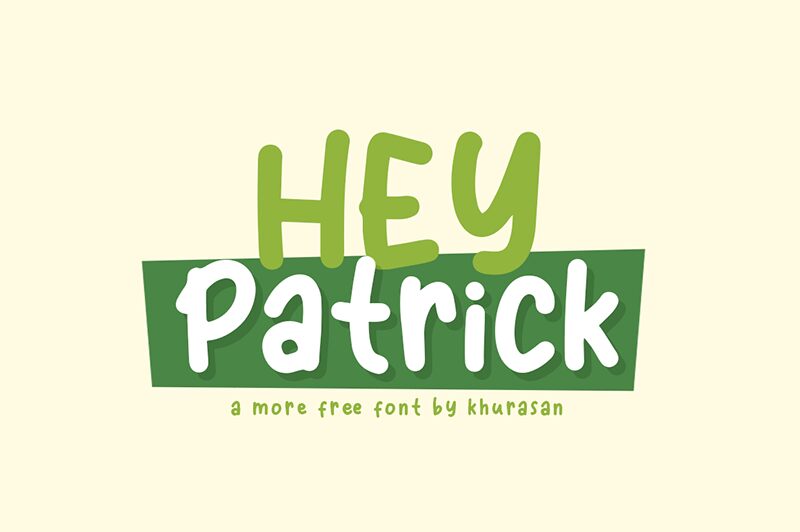
Hey Patrick
Hey Patrick is a charming handwritten font designed by Khurasan. With its playful strokes and unique letterforms, this font is perfect for adding character and personality to your projects. Whether you're creating invitations, logos, or social media posts, Hey Patrick's semi-bold typeface will make your text stand out. This versatile font can be used for a variety of projects from children's books to branding for boutique businesses. The narrow width also makes it ideal for headlines and titles that need to fit within tight spaces. Bring a touch of whimsy to your designs with Hey Patrick!